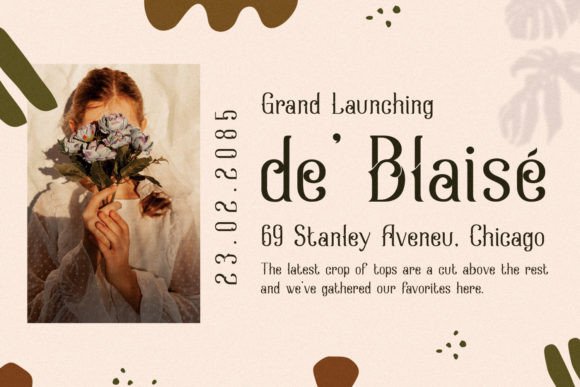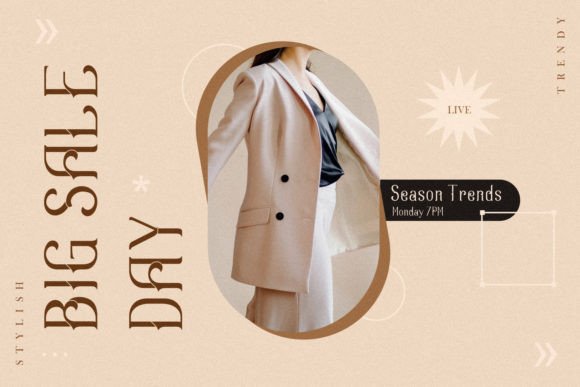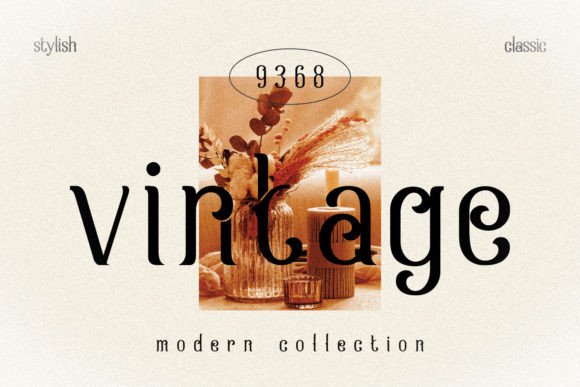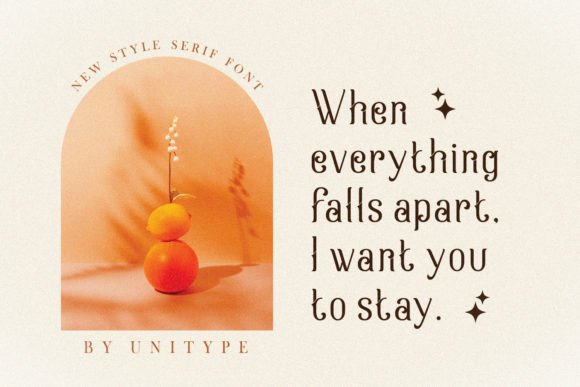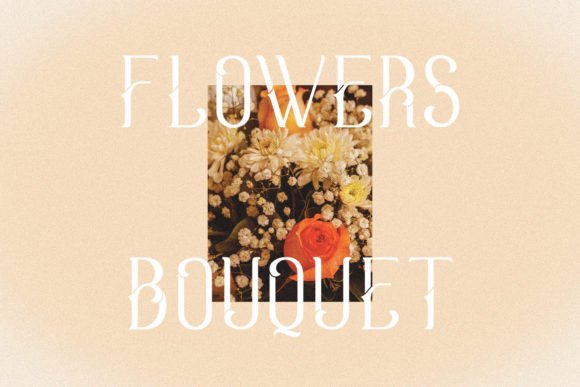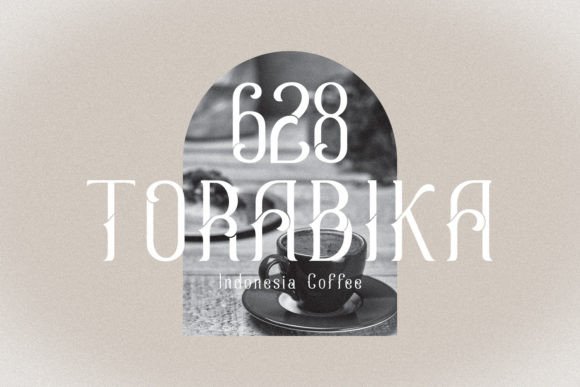
Introducing Elizabeth Font: Elevate Your Designs with Elegance and Sophistication
In the world of typography, a font can make or break a design. If you’re a designer, crafter, or DIY enthusiast looking for a typeface that exudes luxury and modernity, look no further than Elizabeth Font. This decorative font is specifically designed to add a touch of elegance and sophistication to your projects, making it perfect for luxury applications such as wedding invitations, signatures, logos, and more.
A Font that Exudes Luxury and Modernity
Elizabeth Font boasts a unique style and modern look that sets it apart from other typefaces. Its decorative flair makes it an ideal choice for designers and crafters who want to add a touch of glamour to their work. Whether you’re creating wedding invitations, luxury logos, printed quotes, greetings cards, or social media headers, this font is sure to impress. Its versatility also makes it perfect for product packaging, allowing you to create stunning and eye-catching designs that showcase your brand’s personality.
What Makes Elizabeth Font So Special?
Elizabeth Font is a versatile typeface that’s perfect for a range of design applications. Here are some ideas to get you started:
- Wedding Invitations: Create stunning wedding invitations that set the tone for a luxurious and unforgettable celebration.
- Luxury Logos: Elevate your brand’s identity with a custom logo that exudes sophistication and elegance.
- Printed Quotes: Add a touch of glamour to your inspirational quotes and sayings with this beautiful font.
- Greetings Cards: Create stunning greetings cards for special occasions, such as birthdays, anniversaries, and holidays.
- Social Media Headers: Stand out on social media with eye-catching headers that showcase your brand’s personality.
- Product Packaging: Add a touch of luxury to your product packaging and make your brand stand out on store shelves.
Why Choose Elizabeth Font?
With so many fonts available on the market, why choose Elizabeth Font? Here are just a few reasons why designers and crafters love this typeface:
- Unique Style: Elizabeth Font boasts a unique style that’s sure to set your designs apart from the crowd.
- Modern Look: Its modern look makes it perfect for designers and crafters who want to create contemporary and stylish designs.